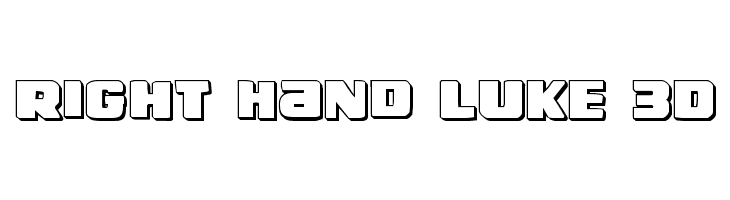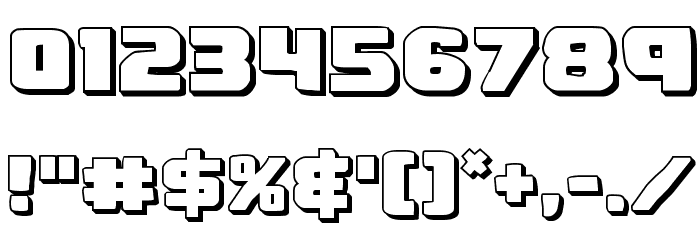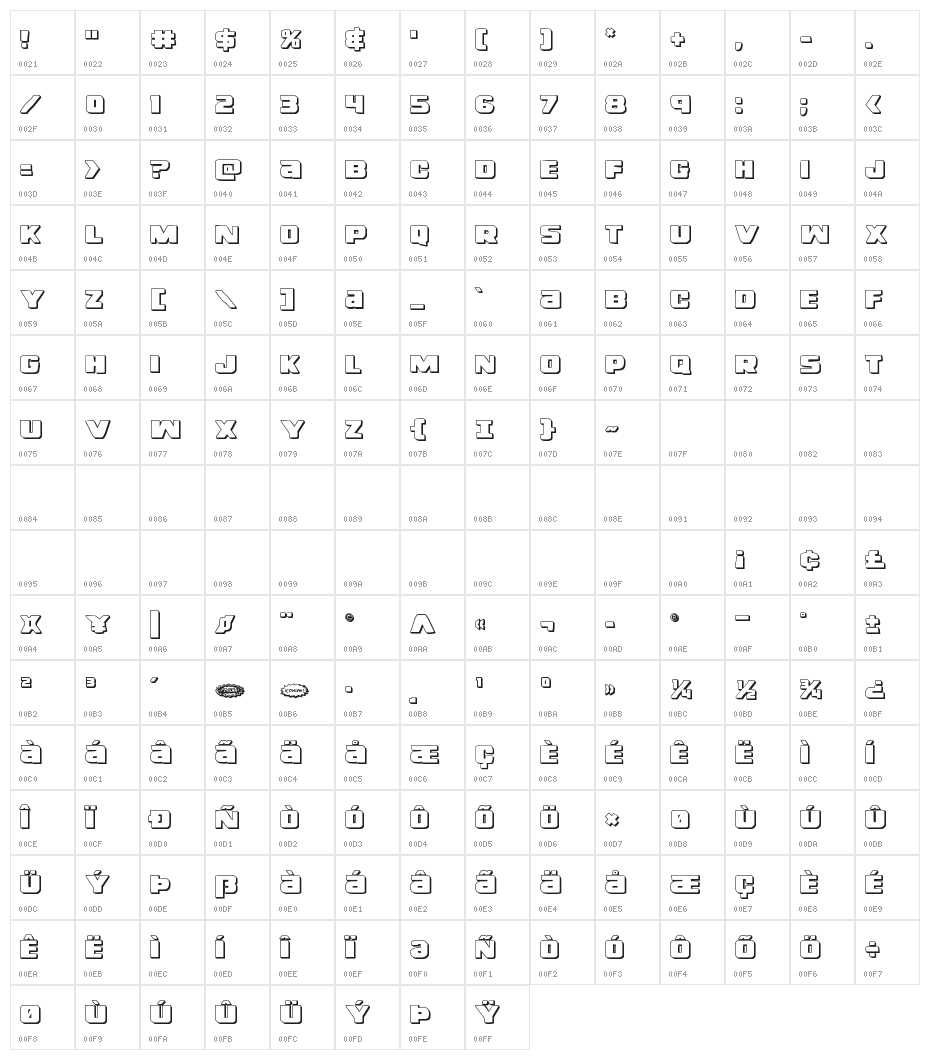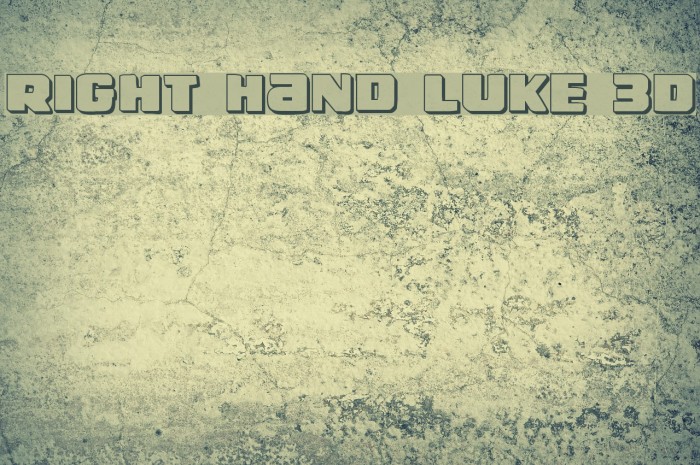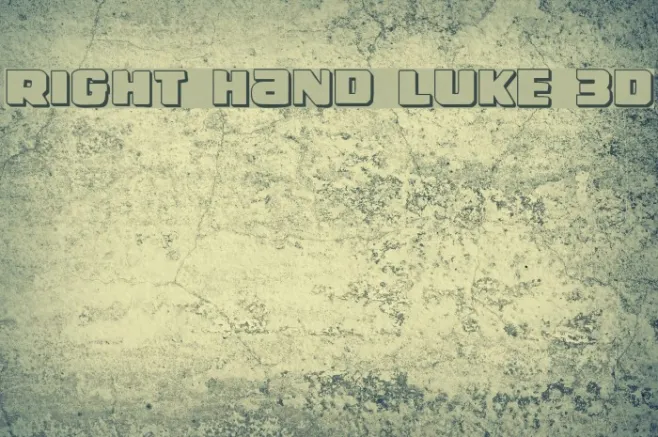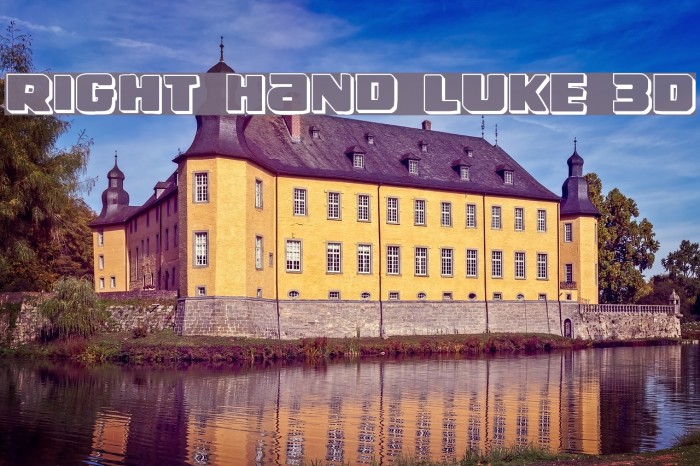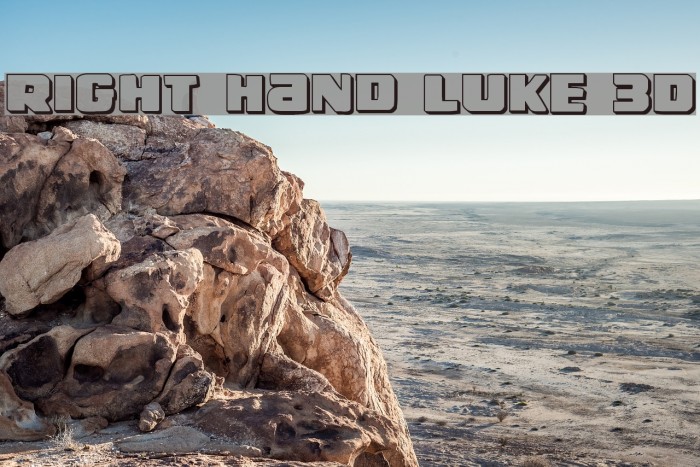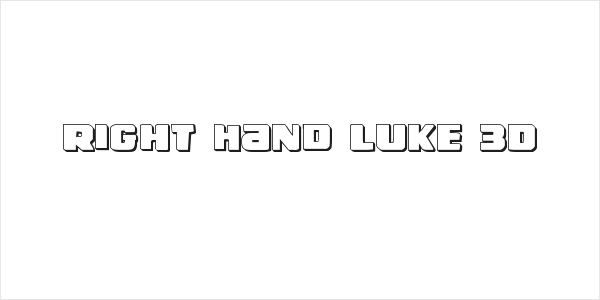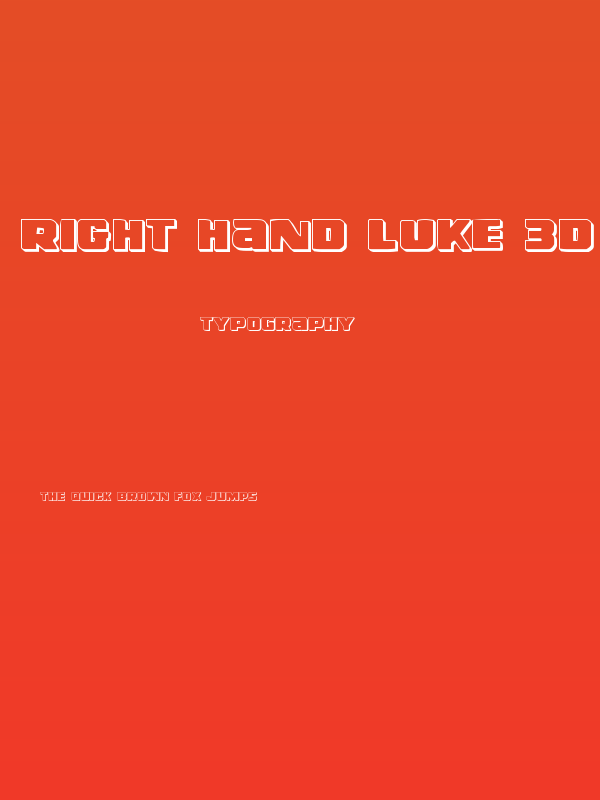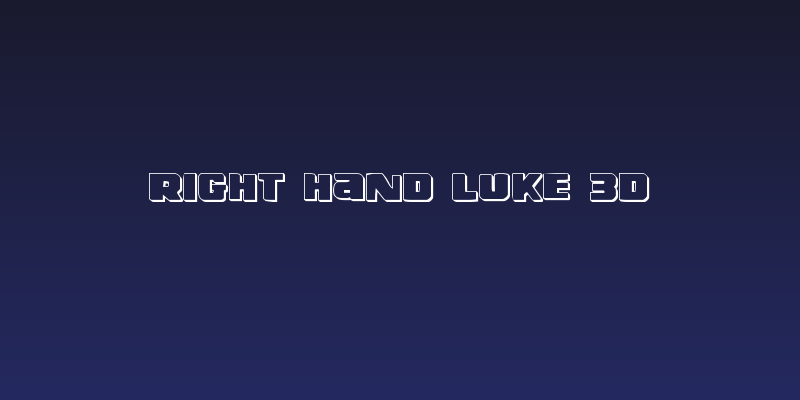
Right Hand Luke 3D Font
Right Hand Luke 3D Description
This font features a bold, three-dimensional style with a strong, impactful presence. Each character is outlined with a thick black border, giving it a distinct and robust appearance. The letters are uppercase and lowercase, with a consistent blocky structure that emphasizes uniformity and strength. The numbers and special characters follow the same design principles, ensuring a cohesive look across all elements. The 3D effect is achieved through subtle shading, adding depth and a sense of realism to the characters. This font is ideal for projects that require a bold statement or a modern, edgy aesthetic.
Proposed ProjectsIdeal for posters, logos, video game titles, and any project needing a bold, modern look.